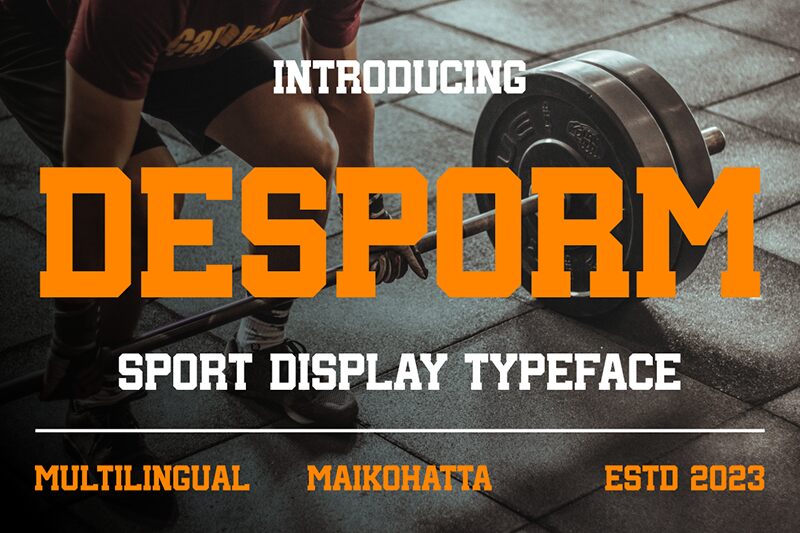
DESPORM
Desporm font by Gilang Ternadho is a free display font made in an old-school style. It is composed of uppercase characters with alternates also available as part of the designer’s awesome display typeface. Characters here have a condensed structure and a bold weight, factors that are ideally important for a headline font.
With all previously mentioned attributes present within this unique type, your projects will undoubtedly gain value and catch more eyes than ever before. Fashion magazines, vintage articles, web design projects, billboard designs, advertising materials at stores would be some good examples to start with.